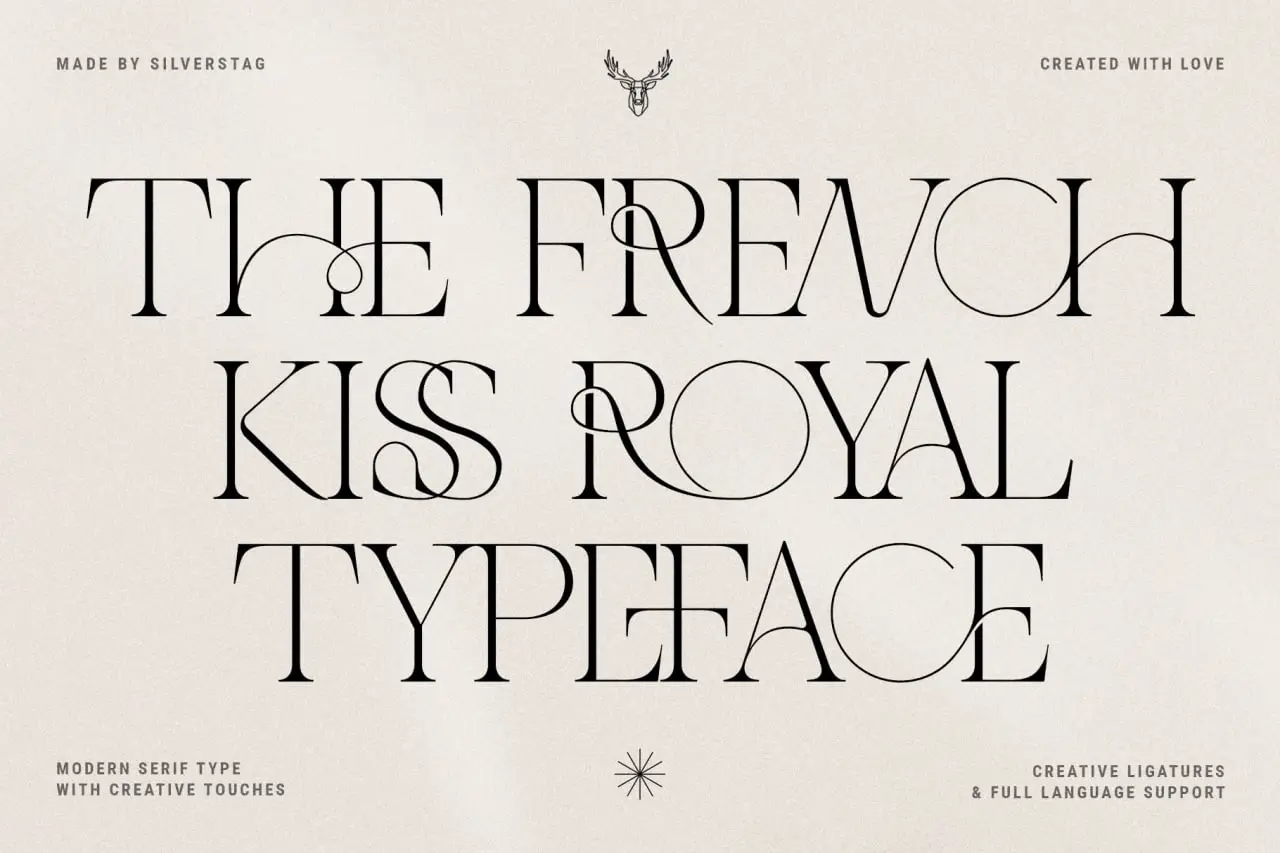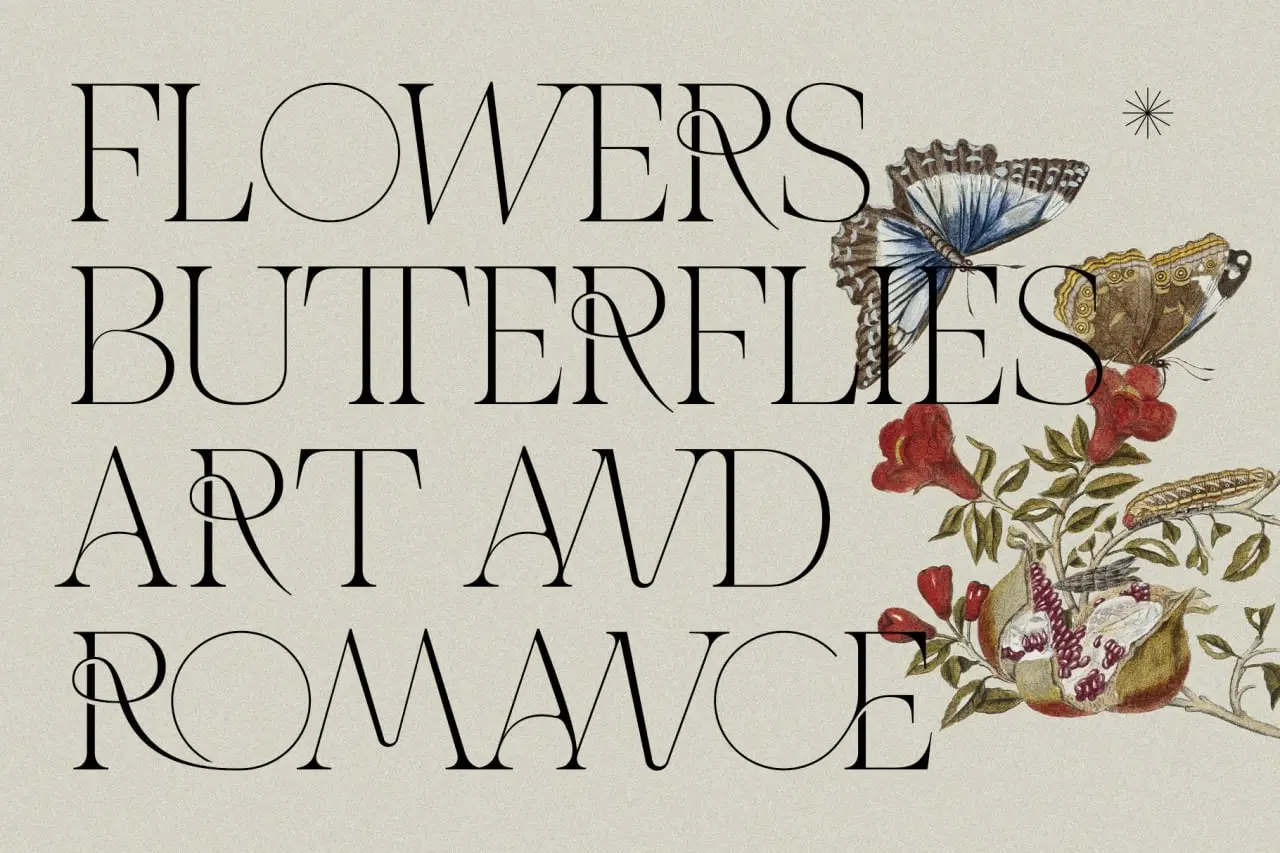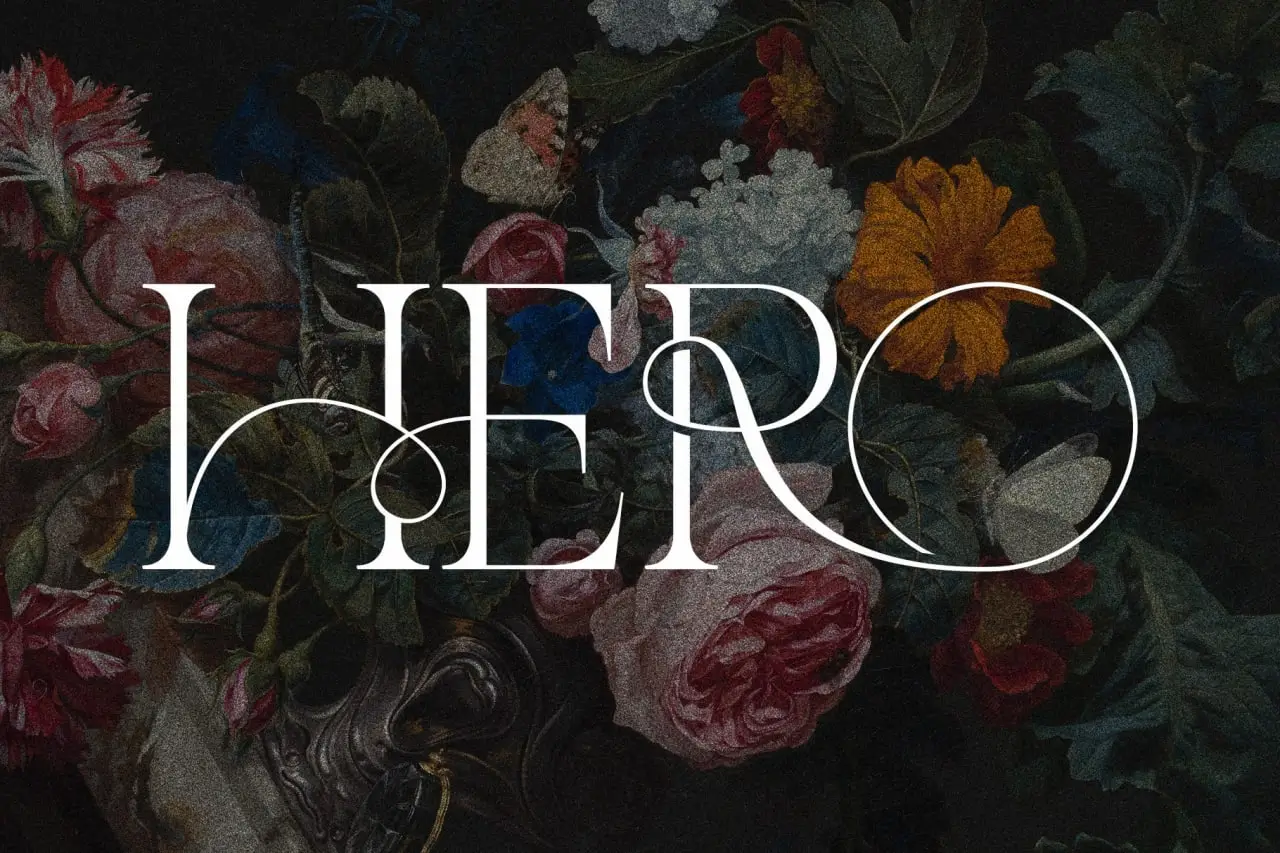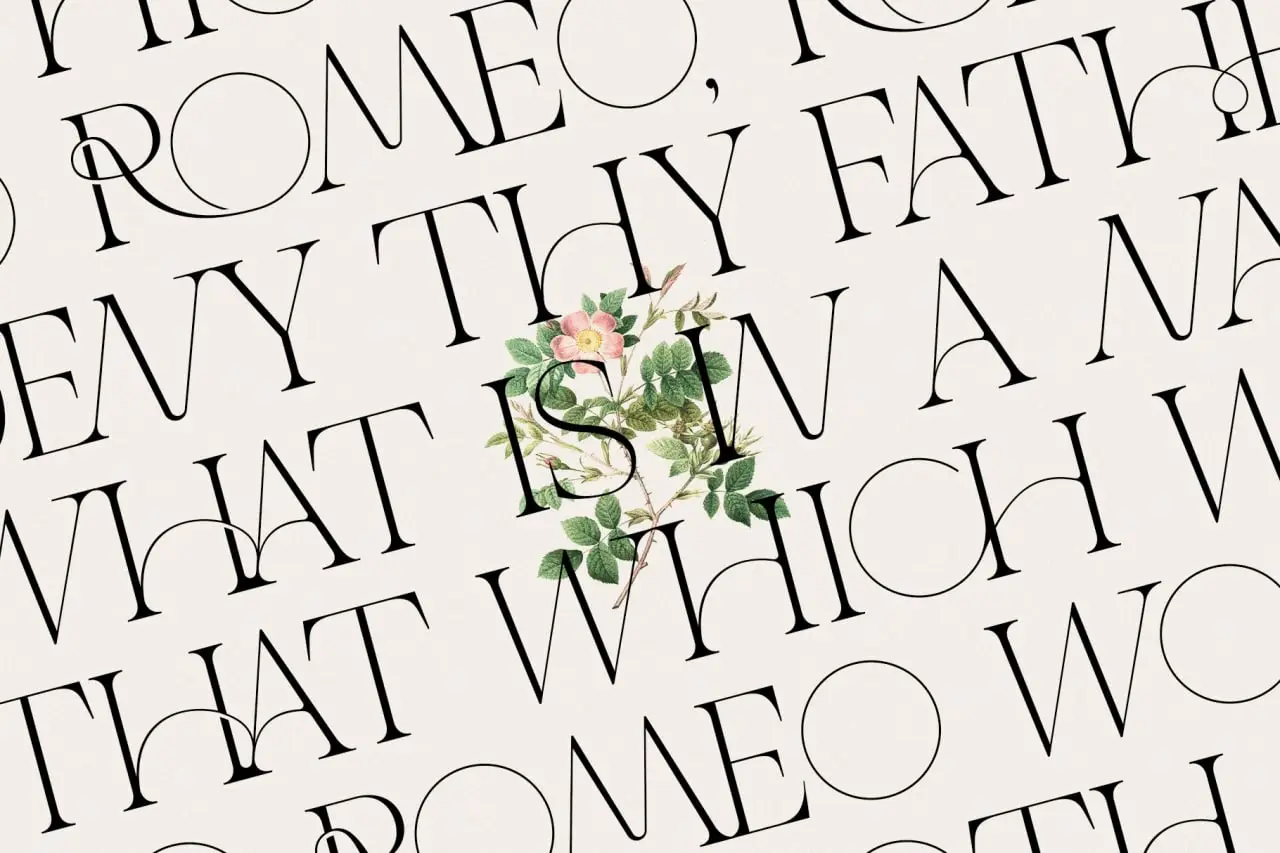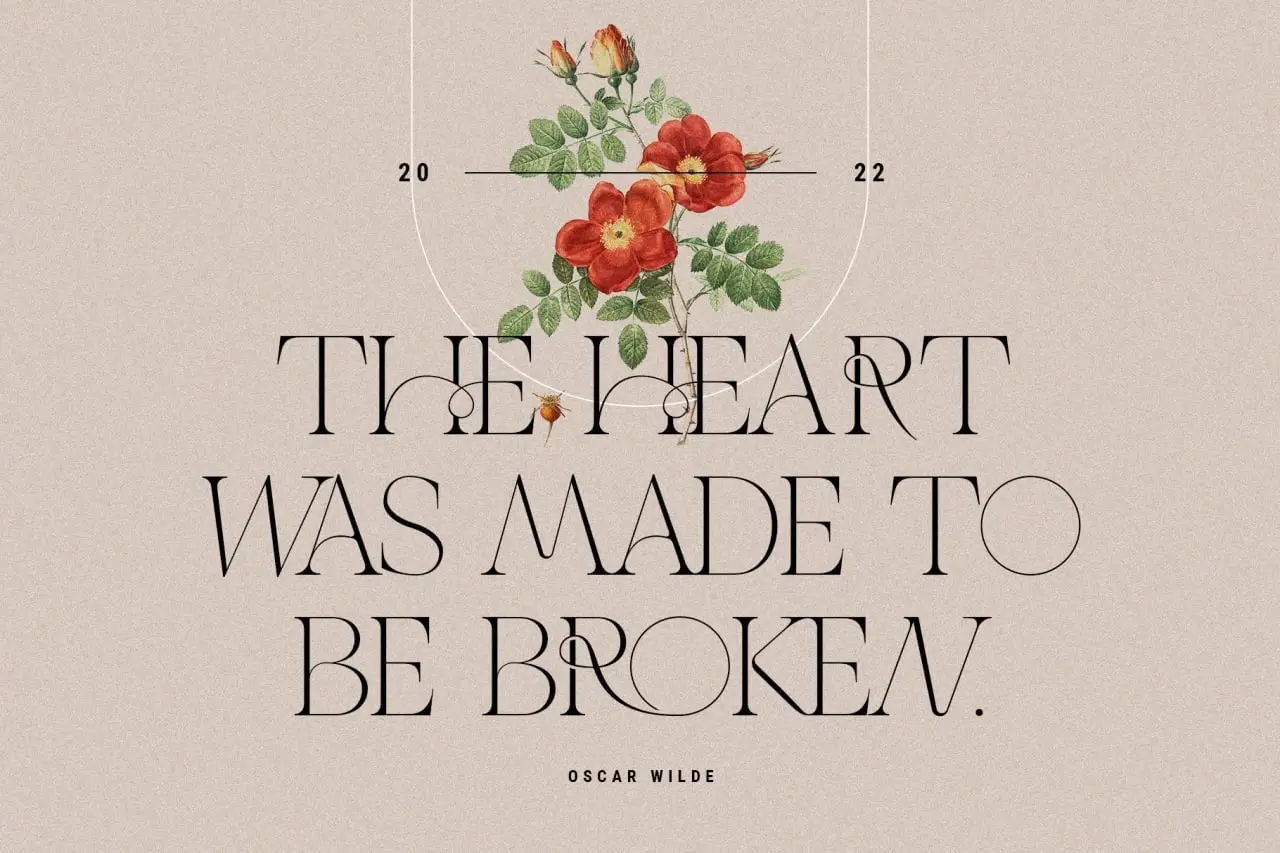
The French Kiss Royal Typeface
The French Kiss Royal Typeface is an elegant and sophisticated font that captures the essence of classic French design. With its unique curves and stylish serifs, this typeface is perfect for a variety of applications, including branding, logos, and print materials.
• Stylish serif font with a classic feel
• Multiple weights for versatile usage
• Uppercase and lowercase letters included
• Special characters and punctuation for complete typography
Ideal for creating elegant invitations, sophisticated branding, and stylish web designs. Use this typeface to add a touch of French flair to your projects.